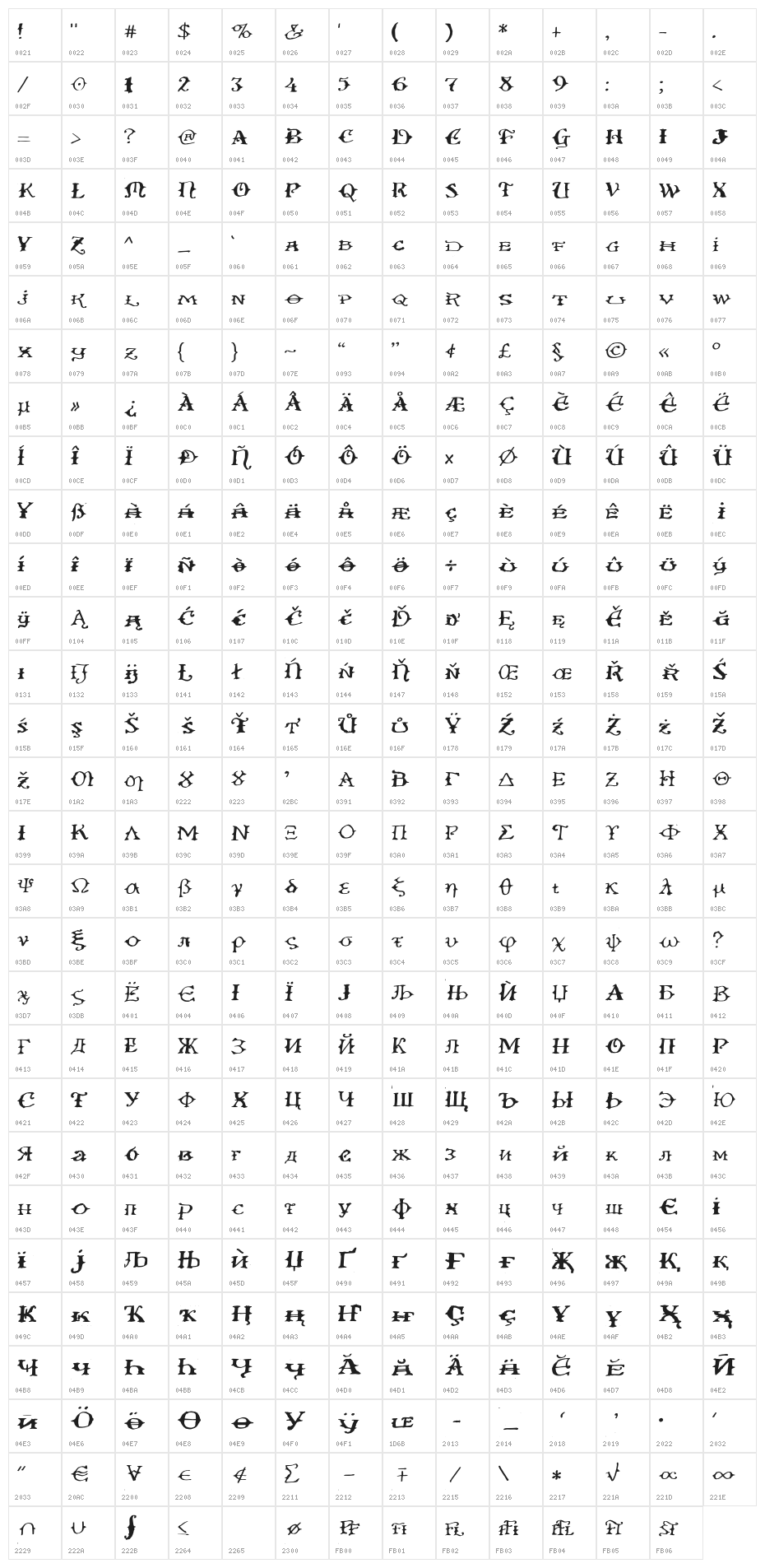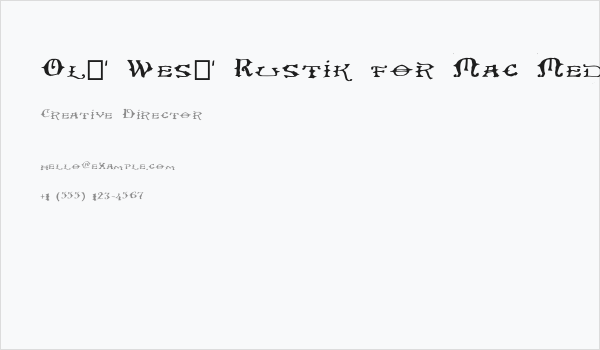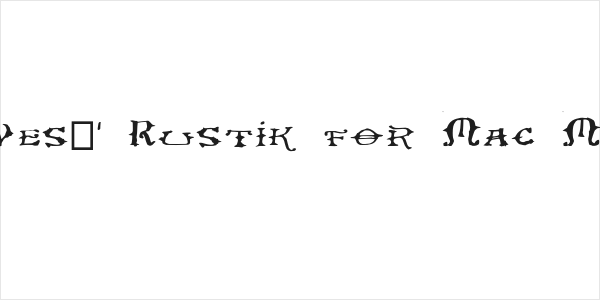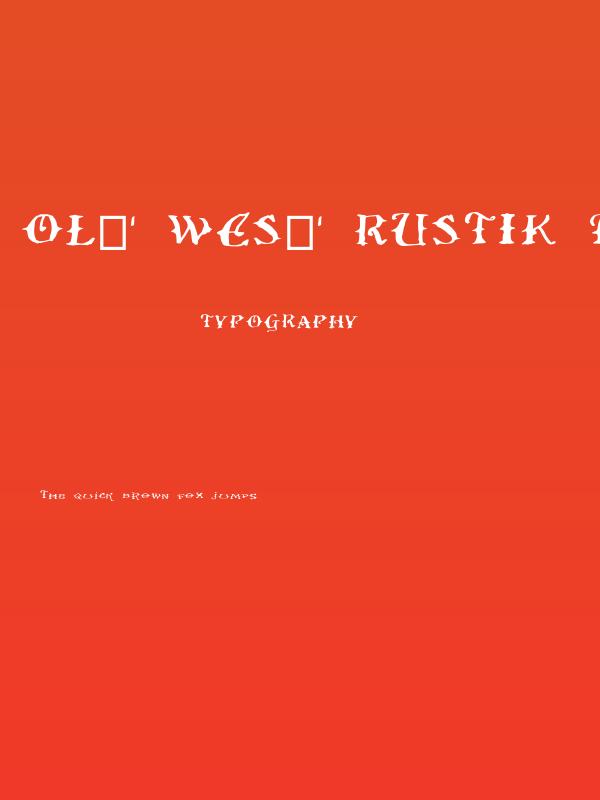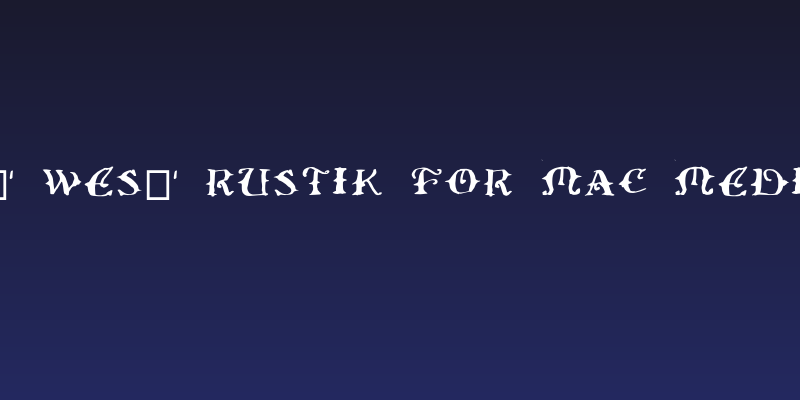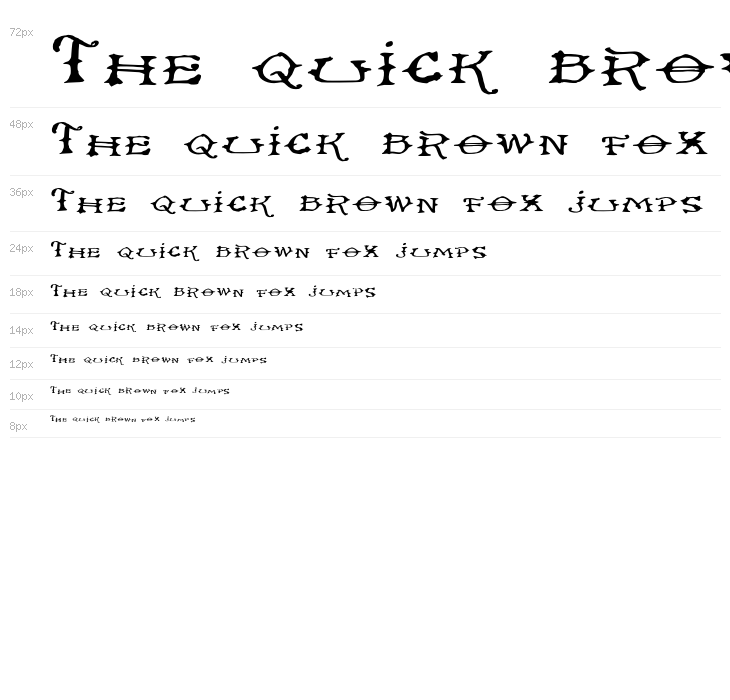
Ol' Wes' Rustik for Mac Medium Font
Ol' Wes' Rustik for Mac Medium Description
This font features a distinct, rustic style with a hand-crafted appearance, reminiscent of vintage Western typography. The characters are bold and have a rough, textured look, giving them an aged and weathered feel. The uppercase and lowercase letters maintain a consistent style, with unique flourishes and serifs that add to the decorative nature of the font. The numbers and special characters follow the same design principles, ensuring a cohesive look across all elements. This font is ideal for projects that require a touch of nostalgia or a rugged, old-world charm.
| Proposed Projects | Ideal for Western-themed designs, vintage posters, branding for rustic products, or any project needing a nostalgic touch. |